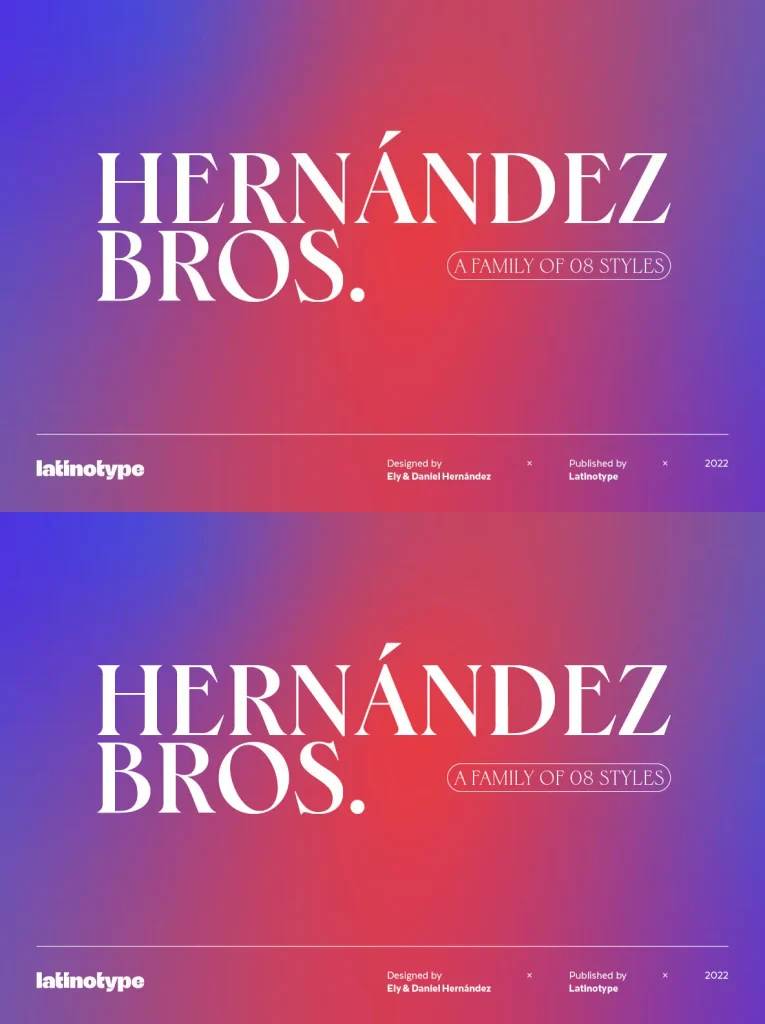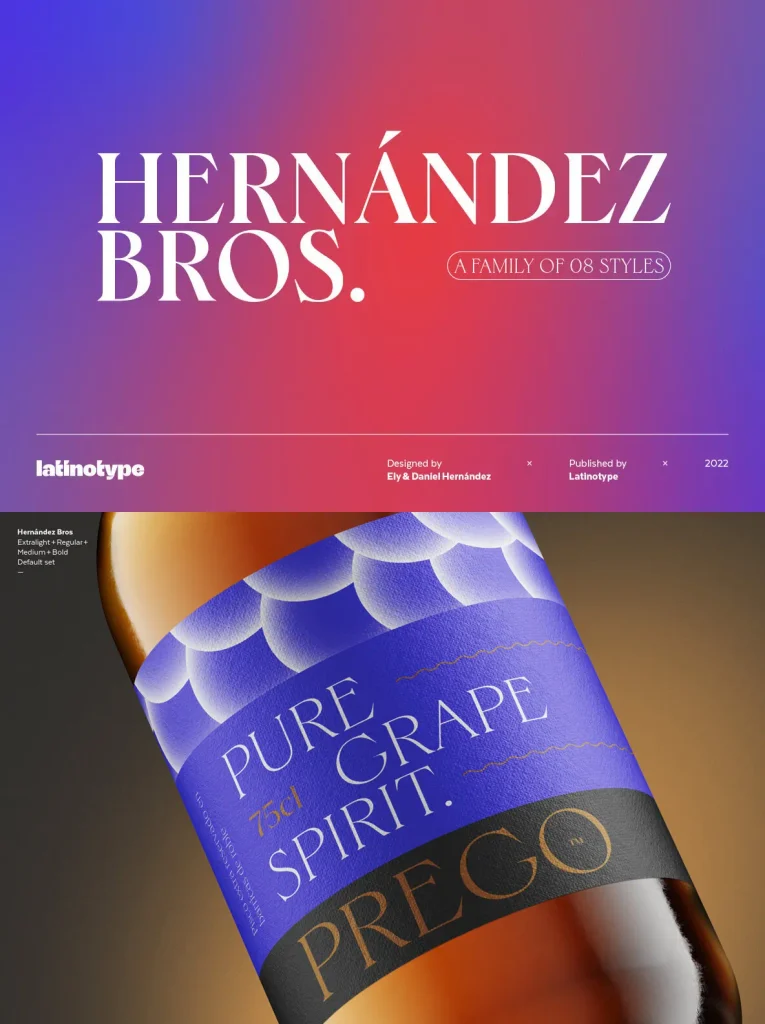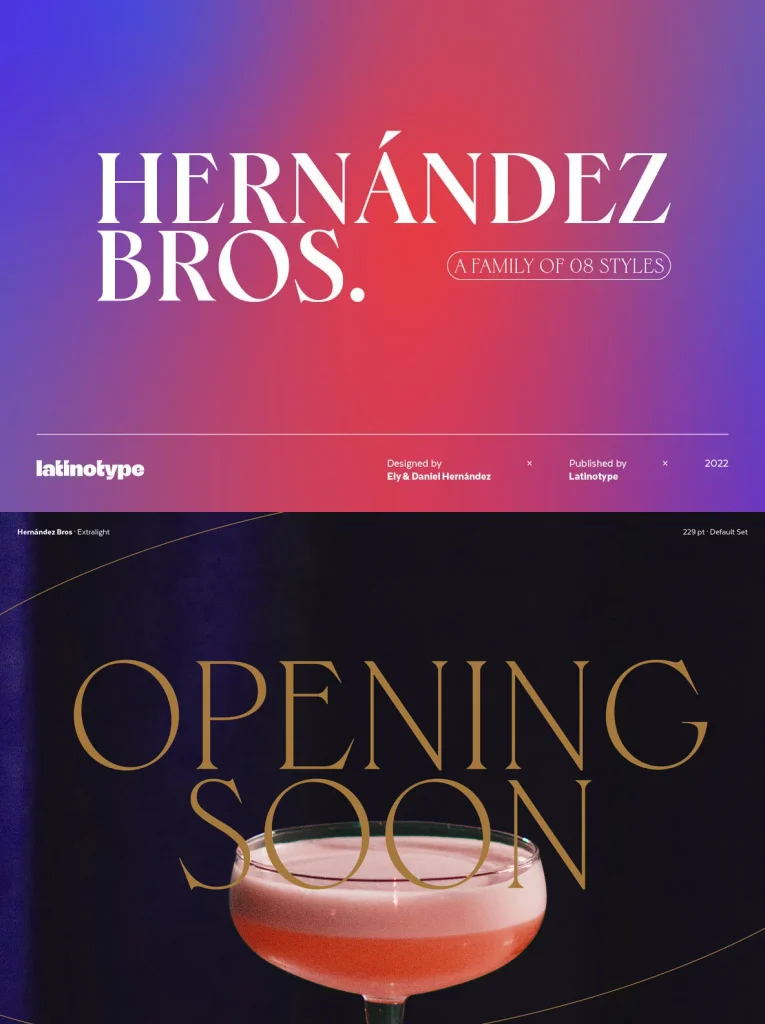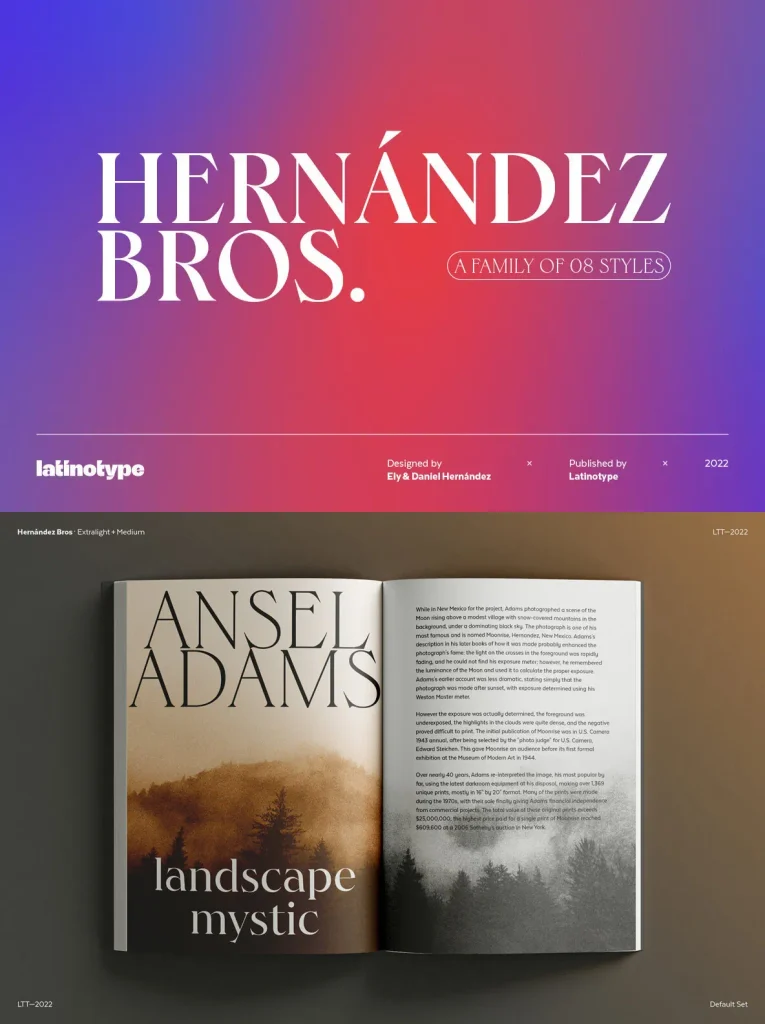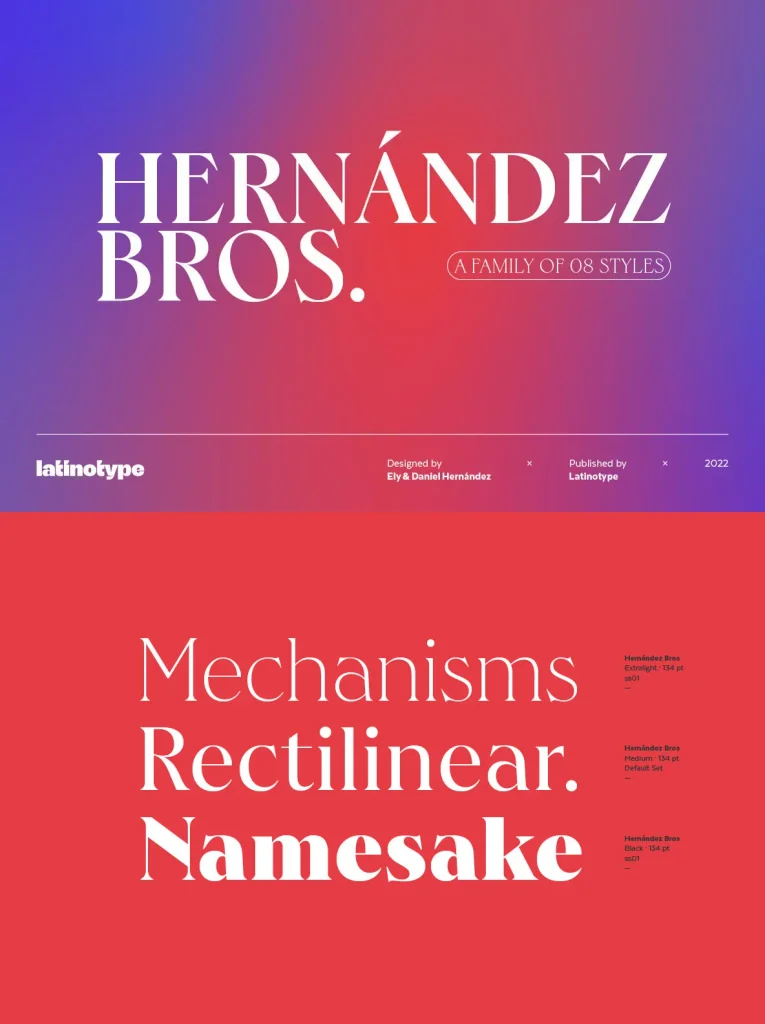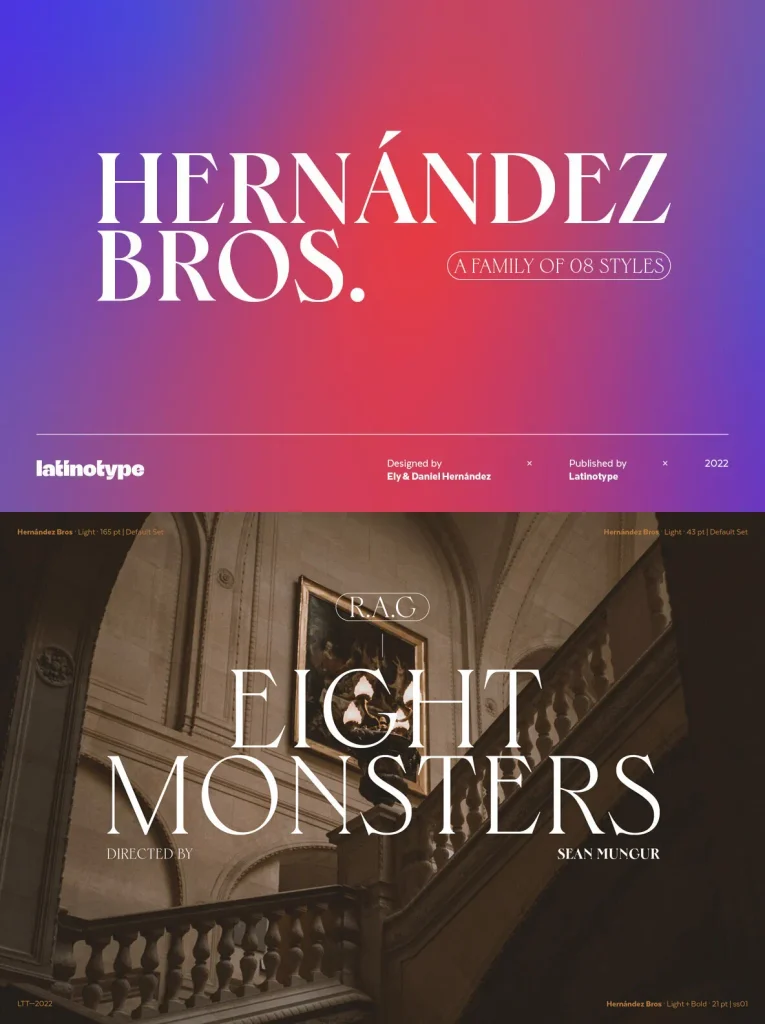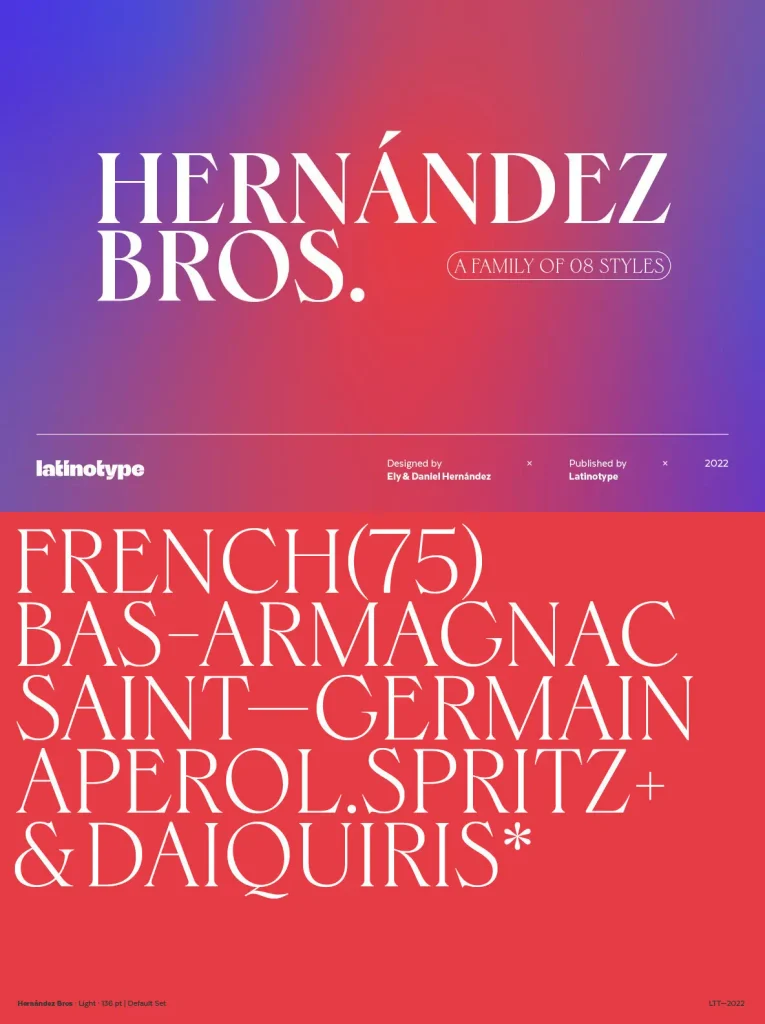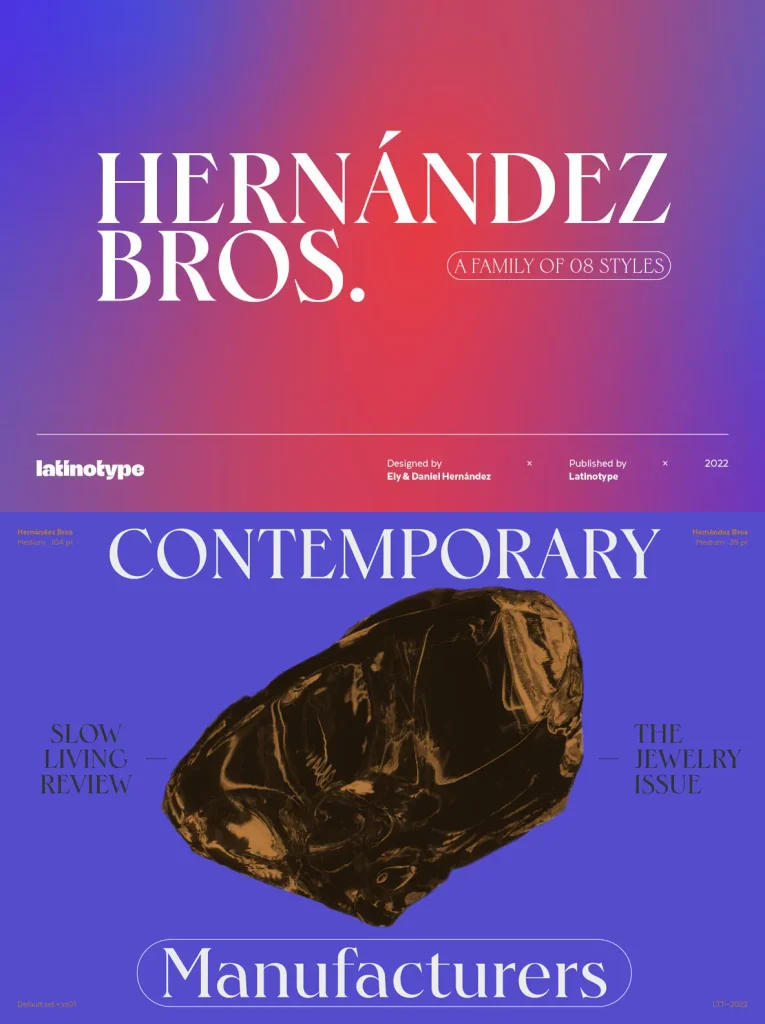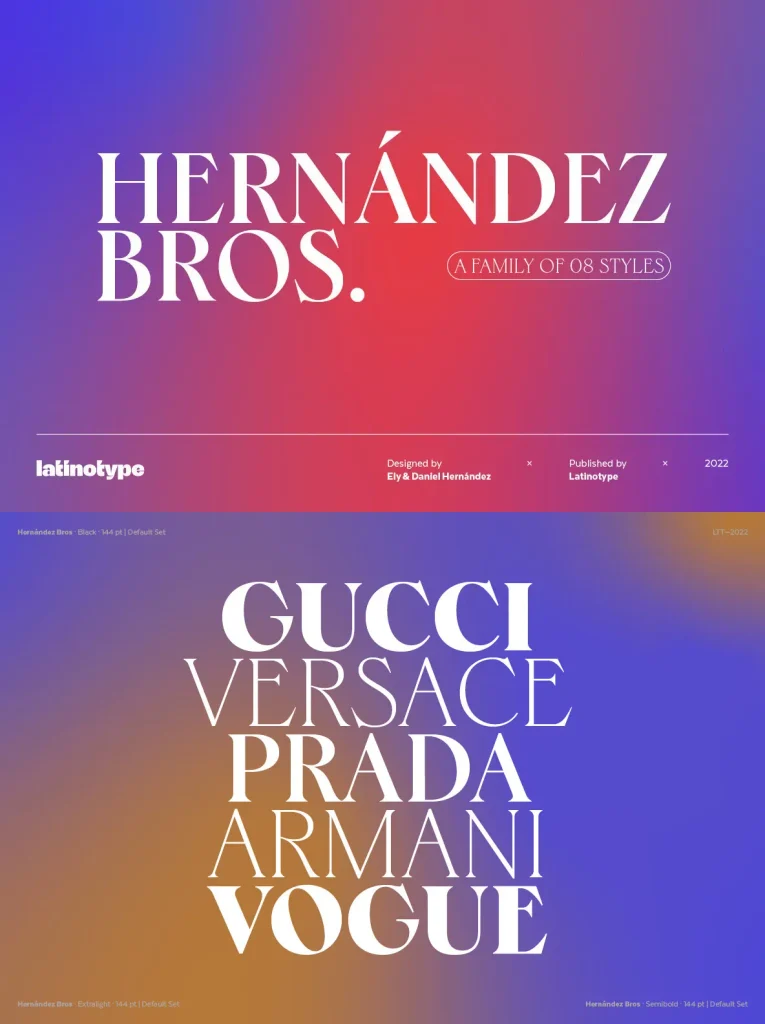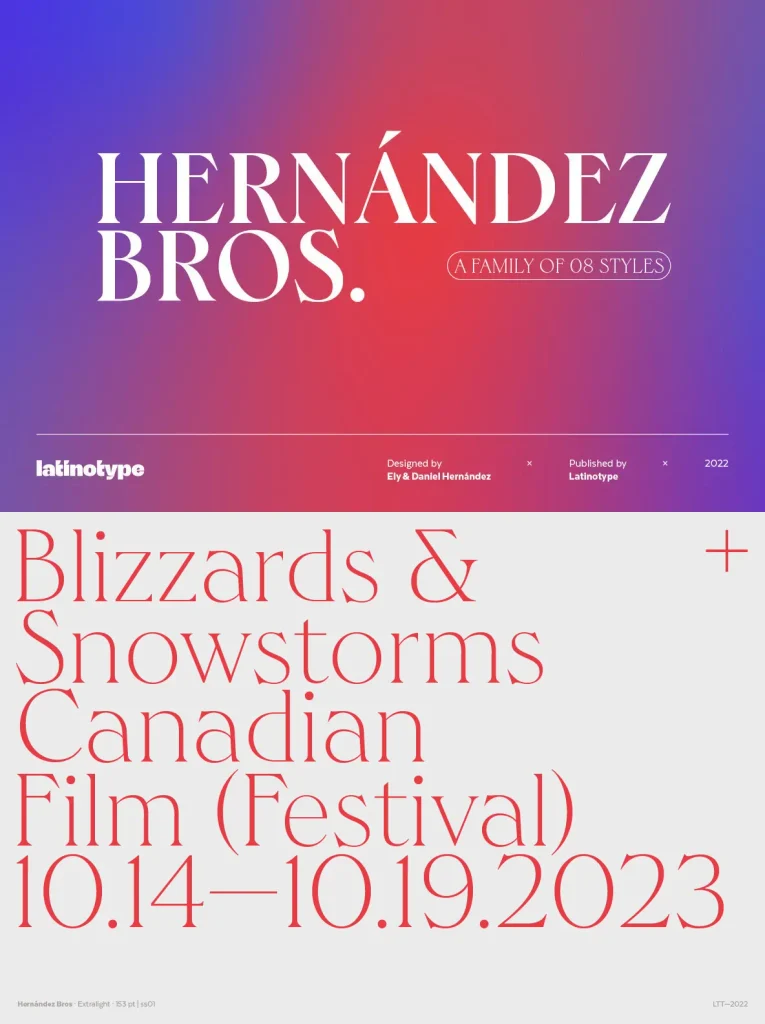
Hernández Bros Typeface: Collaboration in Design
Hernández Bros is a distinctive typeface created by Daniel and Eli Hernández during the unique challenges of 2021. Rooted in collaboration and familial creativity, this typeface reflects a spirit of unity that emerged in the midst of global uncertainty. Every letter showcases a thoughtful balance, bringing together strong character and refined details.
The design speaks to a wide audience—ideal for projects that benefit from a harmonious blend of personality and functionality. Its thoughtful execution ensures steadfast readability across a variety of digital and print contexts, making it a practical choice for designers seeking clarity with character.